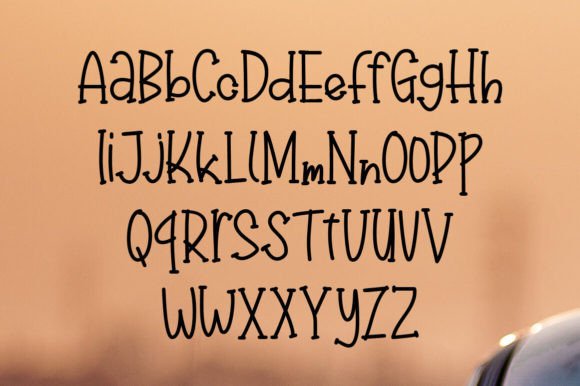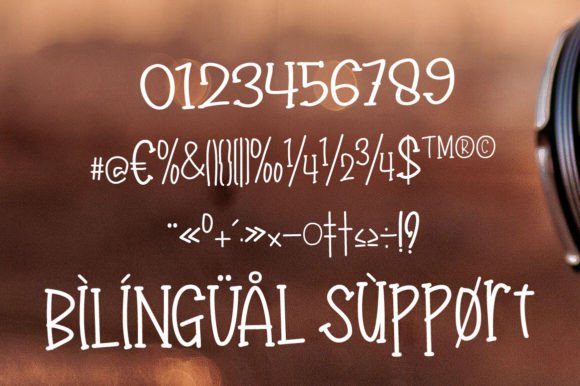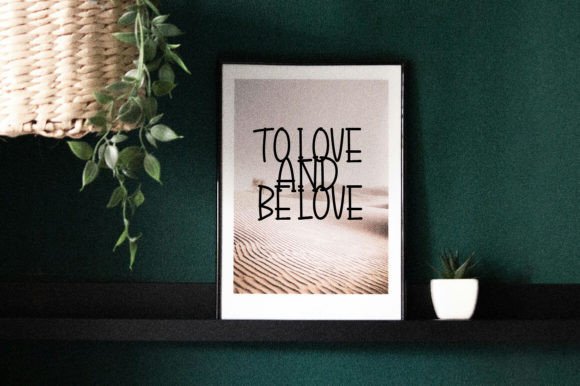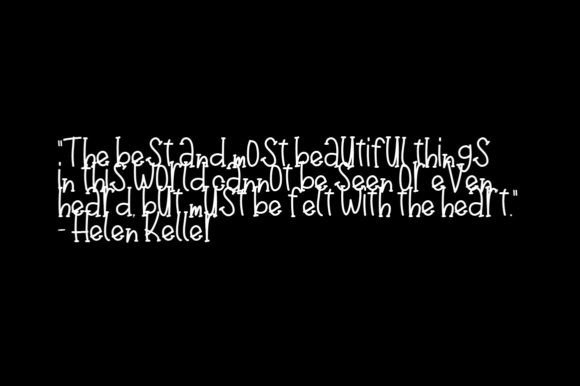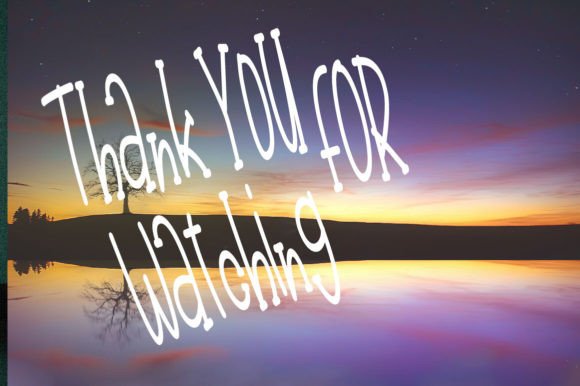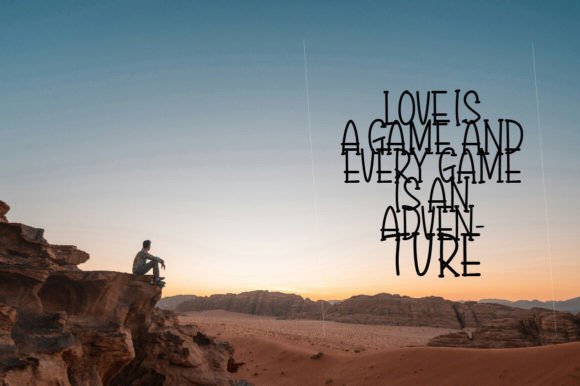
Introduction to Nadhira Font
Have you ever been stuck in a creative rut, scrolling through design inspiration boards, and then suddenly, a font catches your eye? That’s exactly what happened to me when I stumbled upon the Nadhira Font. Its modern and elegant charm immediately drew me in, and I knew I had to share it with fellow designers.
The Nadhira Font is a true gem for any design project. With its sleek and uniform stroke width, it exudes a sense of contemporary minimalism that’s hard to resist. Whether you’re working on a logo design, product packaging, or social media post, this font is sure to add an extra layer of sophistication and style.
What sets the Nadhira Font apart is its high-quality design, crafted with precision and clarity, yet maintaining a sense of fluidity and grace. It’s a true design resource that’s perfect for any creative project, from quotes to merchandise, and everything in between.
Key Features of Nadhira Font
- High-quality, elegant script font suitable for creative projects and design resources.
- Designed to be highly versatile, Nadhira Font can be used for a wide range of creative projects, from invitations to digital art.
- Unique characteristics include intricate details and subtle flourishes, adding an extra layer of sophistication to any design.
Honest Review: Nadhira Font
I recently stumbled upon the Nadhira Font, and I must say it’s been a game-changer for my creative projects. The high-quality design is simply stunning, with elegant lines and a sophisticated feel that’s perfect for luxury branding and high-end publications.
- What works well: ✨ The Nadhira Font is incredibly versatile, suitable for a wide range of creative projects, from modern fashion to elegant wedding invitations.
- What works well: ✨ The font is highly customizable, allowing you to easily adjust the size, color, and style to suit your design needs.
⚠️ One of the limitations of the Nadhira Font is that it’s not suitable for very small text sizes, as the lines can become a bit blurry. However, this is a minor issue that can be easily worked around with some careful design.
Overall, I’m thoroughly impressed with the Nadhira Font. Its high-quality design, versatility, and customizability make it an excellent addition to any designer’s toolkit. Whether you’re working on a luxury branding project or a high-end publication, the Nadhira Font is definitely worth considering.
Nadhira Font
Tips for Getting the Most Out of the Nadhira Font
Use the Nadhira Font on a transparent background to create a unique and eye-catching design. Experiment with different font sizes and styles to add depth and interest to your design. You can also use the font in combination with other design elements, such as images and graphics, to create a high-quality and creative project.
The Nadhira Font is perfect for creative projects, such as wedding invitations, business cards, and social media graphics. It’s also great for designing posters, flyers, and brochures. The font’s unique style and high quality make it a great addition to any design project.